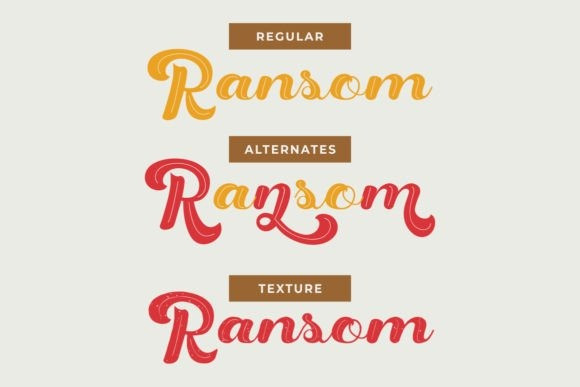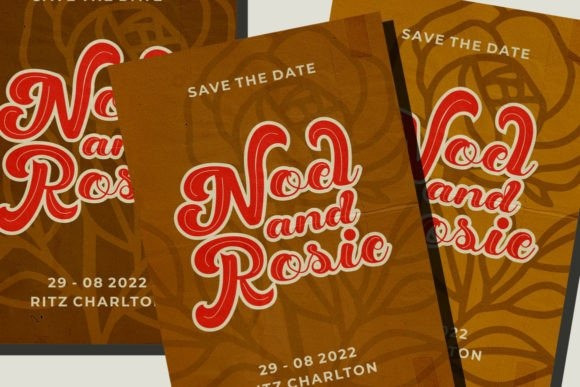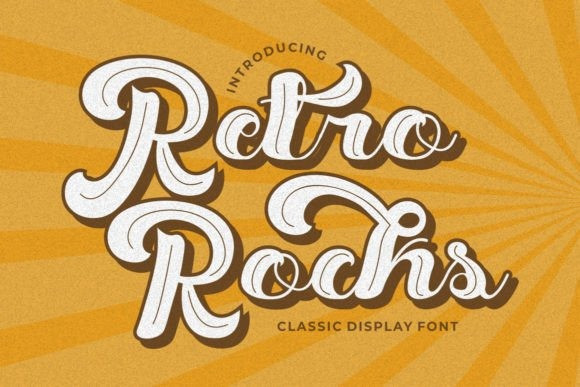
Retro Rocks Font
Retro Rock feels playfully nostalgic and delivers an incredible vintage aesthetic. Use this script display font to add that special retro touch to any design idea you can think of! This font is PUA encoded which means you can access all the glyphs and ligatures with ease!